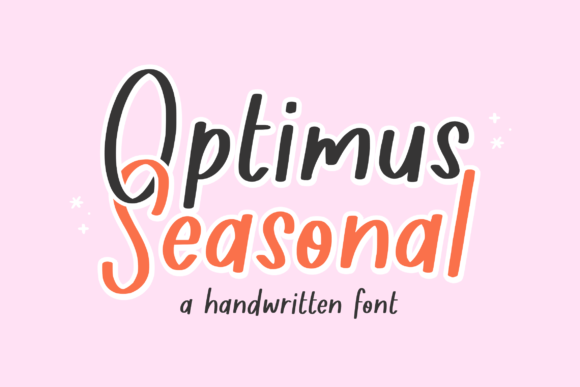
Get ready to be amazed by Optimus Seasonal, the captivating font that oozes charm and individuality. Its graceful curves and playful strokes will add a touch of whimsy to your creative projects.
Imagine your words dancing across the page, each letter radiating warmth and personality. Optimus Seasonal isn't just a font; it's an experience that will elevate your designs to new heights.
With Optimus Seasonal, you can craft logos that pop, social media posts that sparkle, and product packaging that captivates. Its versatile style seamlessly blends with any color palette, making it the perfect choice for a wide range of projects.
But what truly sets Optimus Seasonal apart is its ability to evoke emotions. Its friendly and approachable nature will make your audience feel connected to your brand. Whether it's a heartfelt message, a quirky invitation, or a stunning signage, Optimus Seasonal will ensure your words resonate with your audience.
So why settle for ordinary fonts when you can have Optimus Seasonal? Embrace the extraordinary and let your creativity soar. Let this beautiful script font infuse your projects with charm and magic.